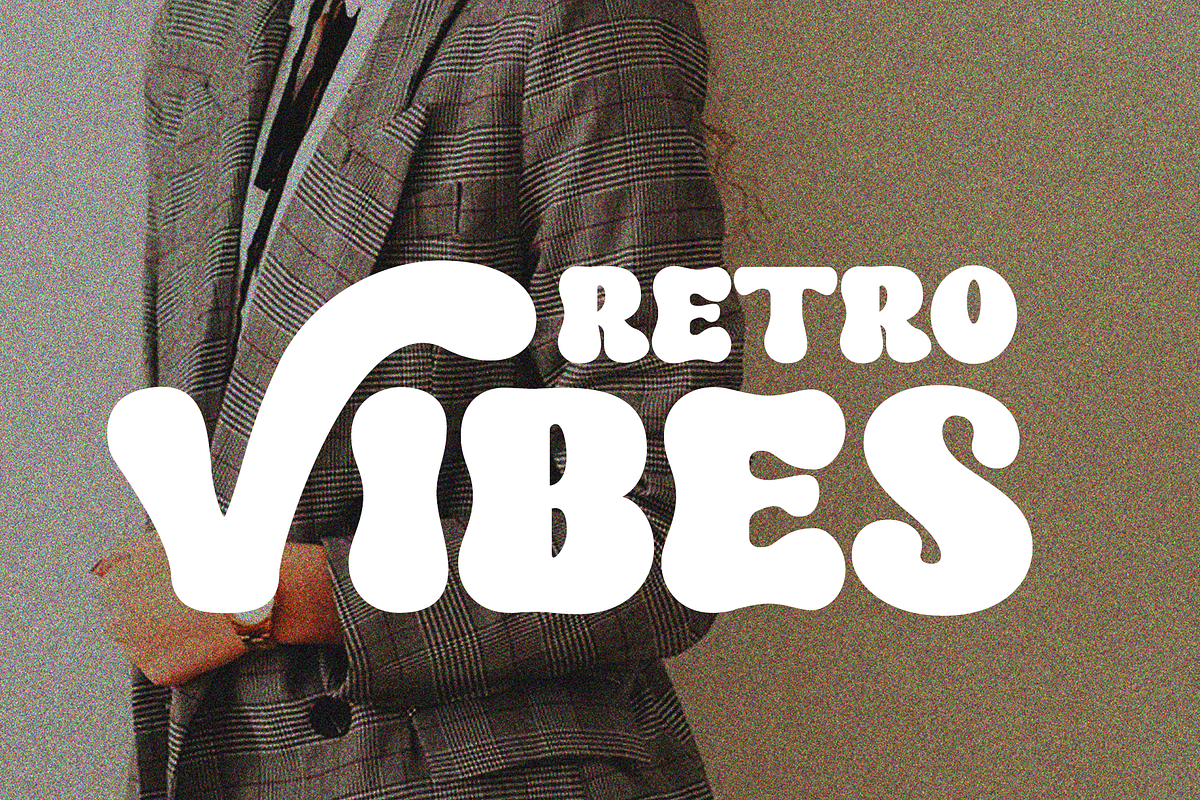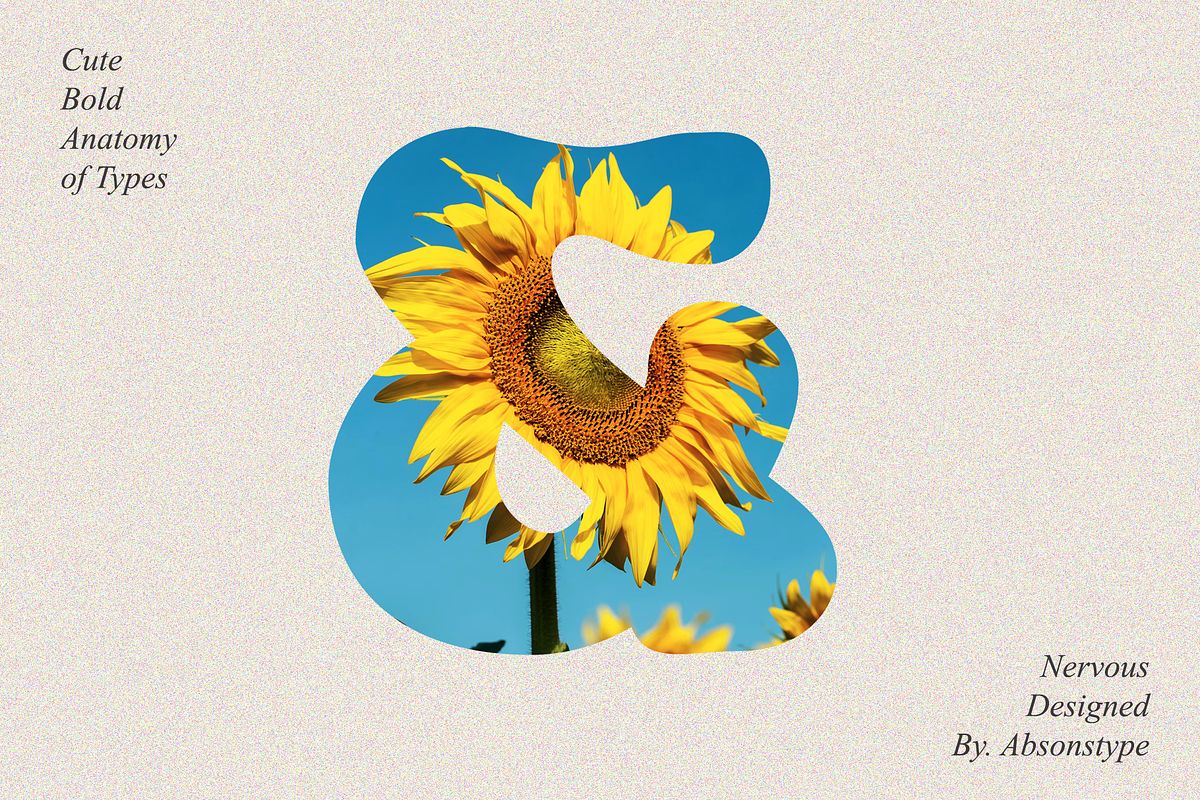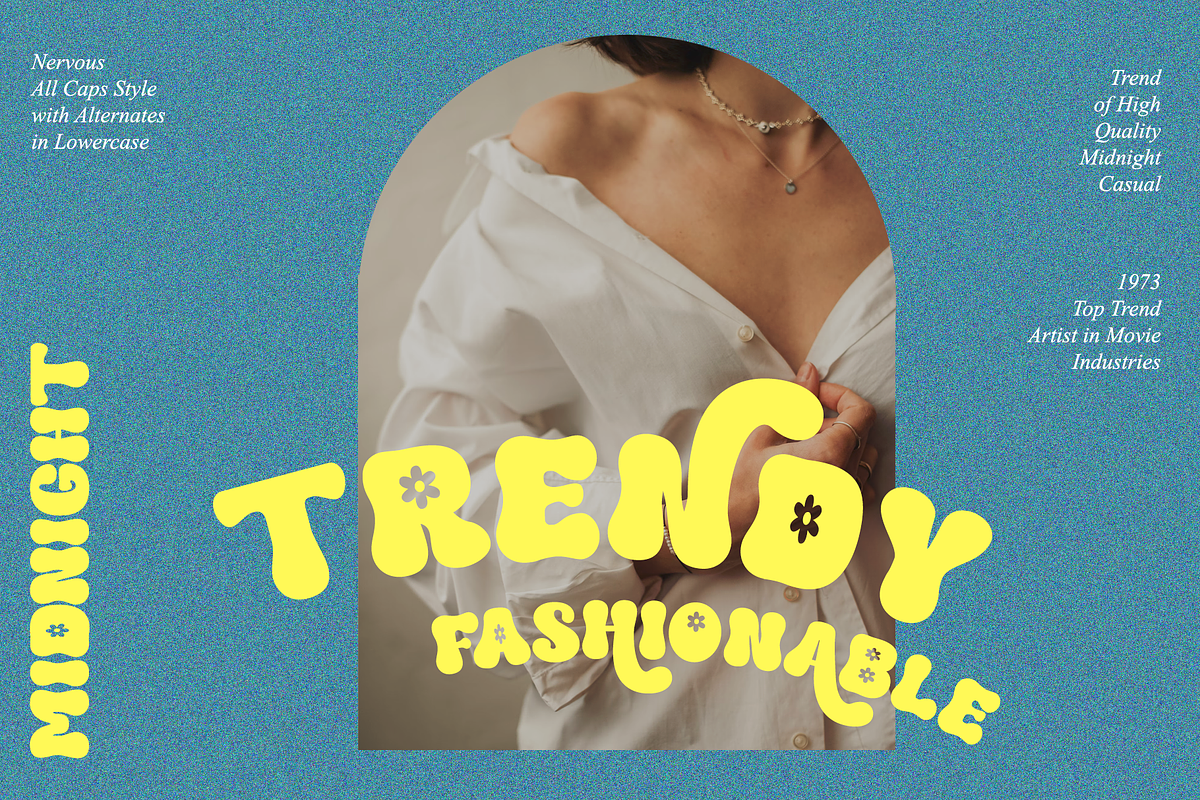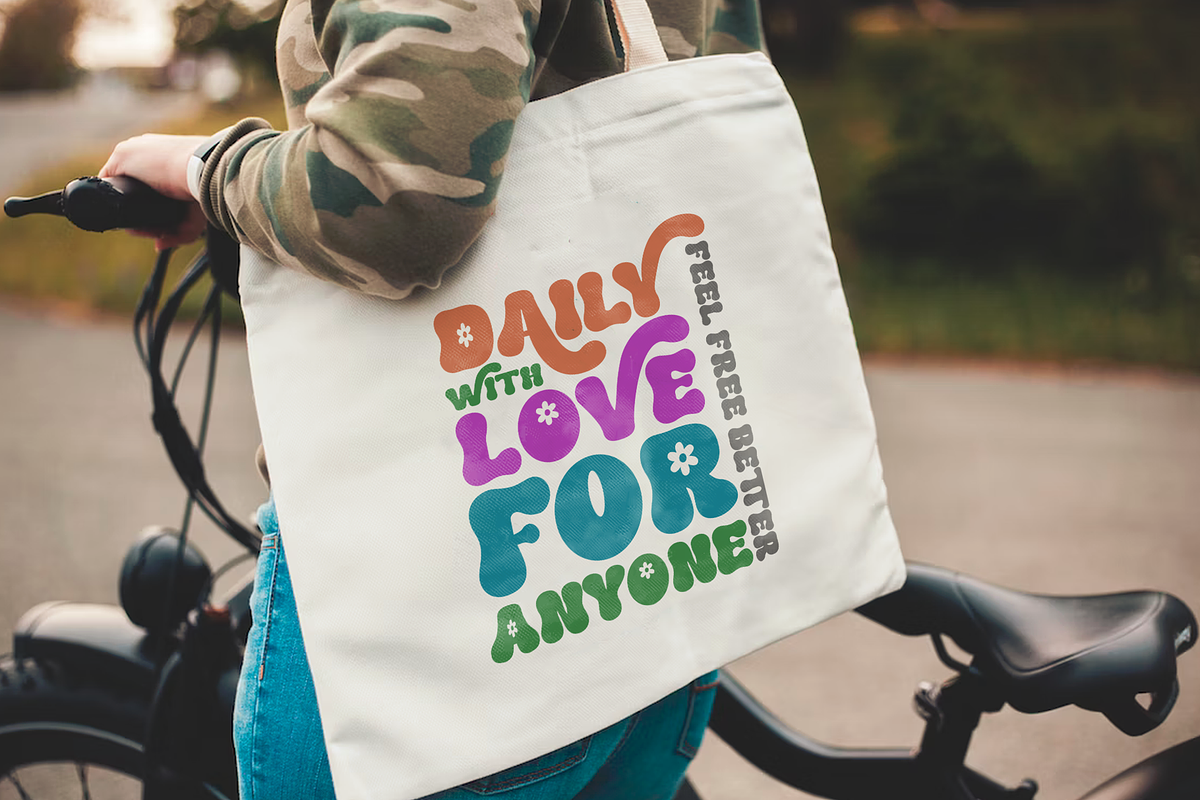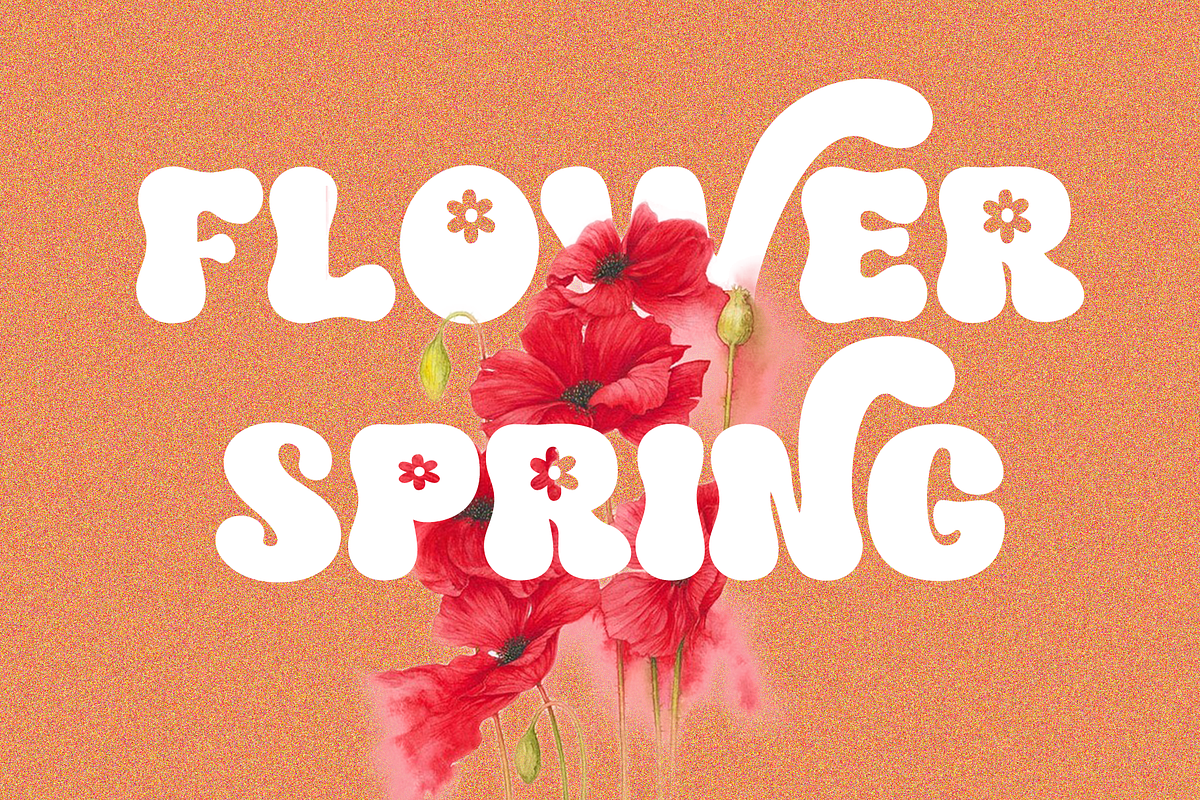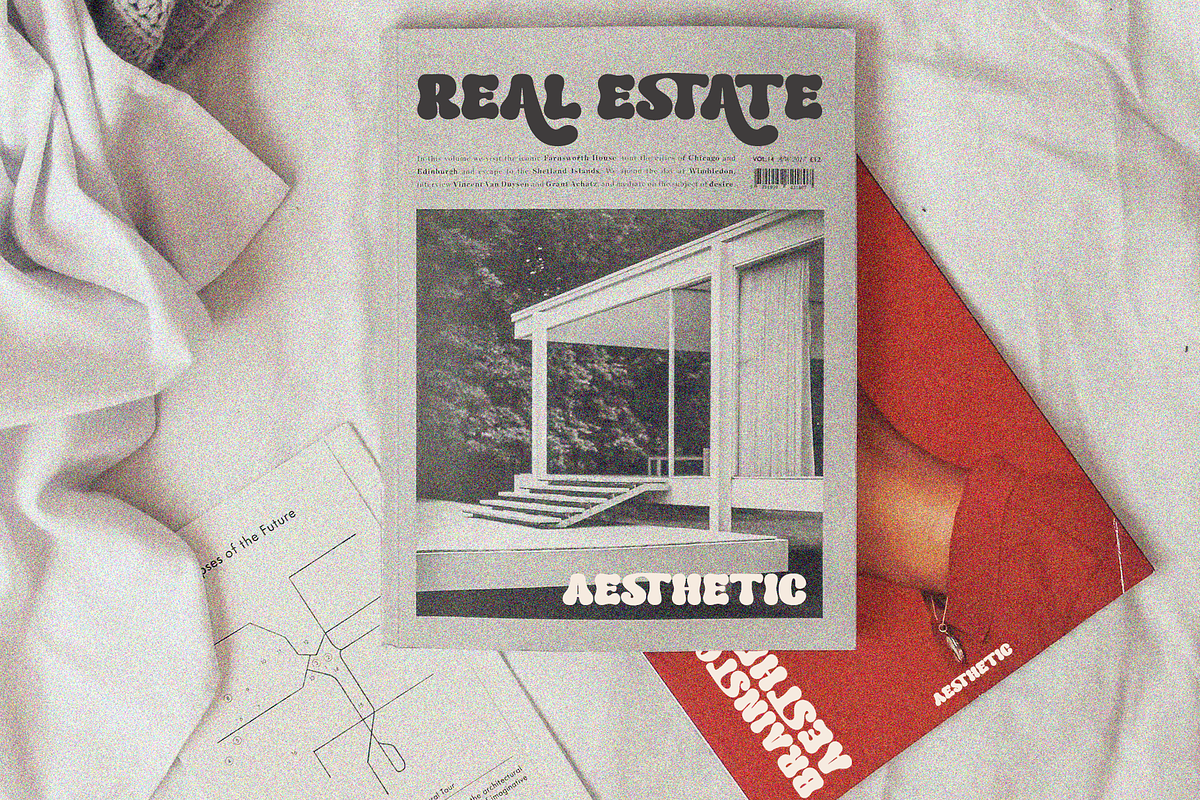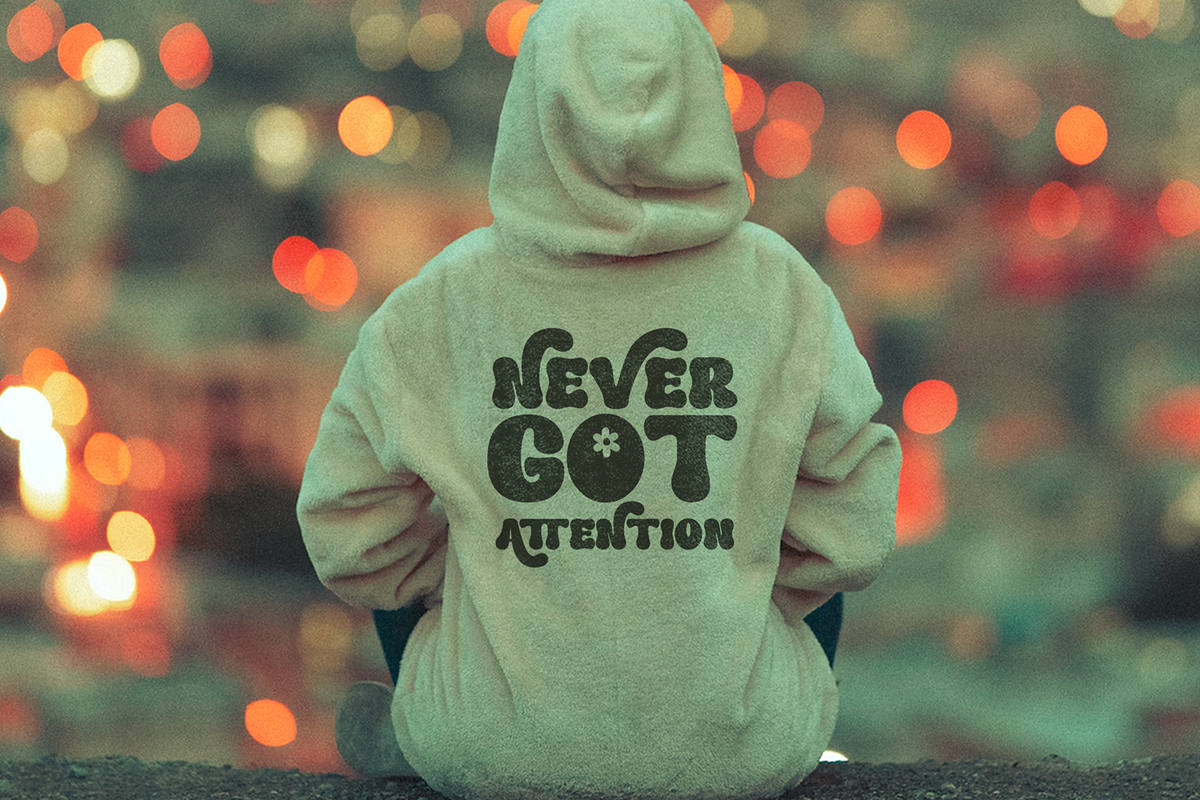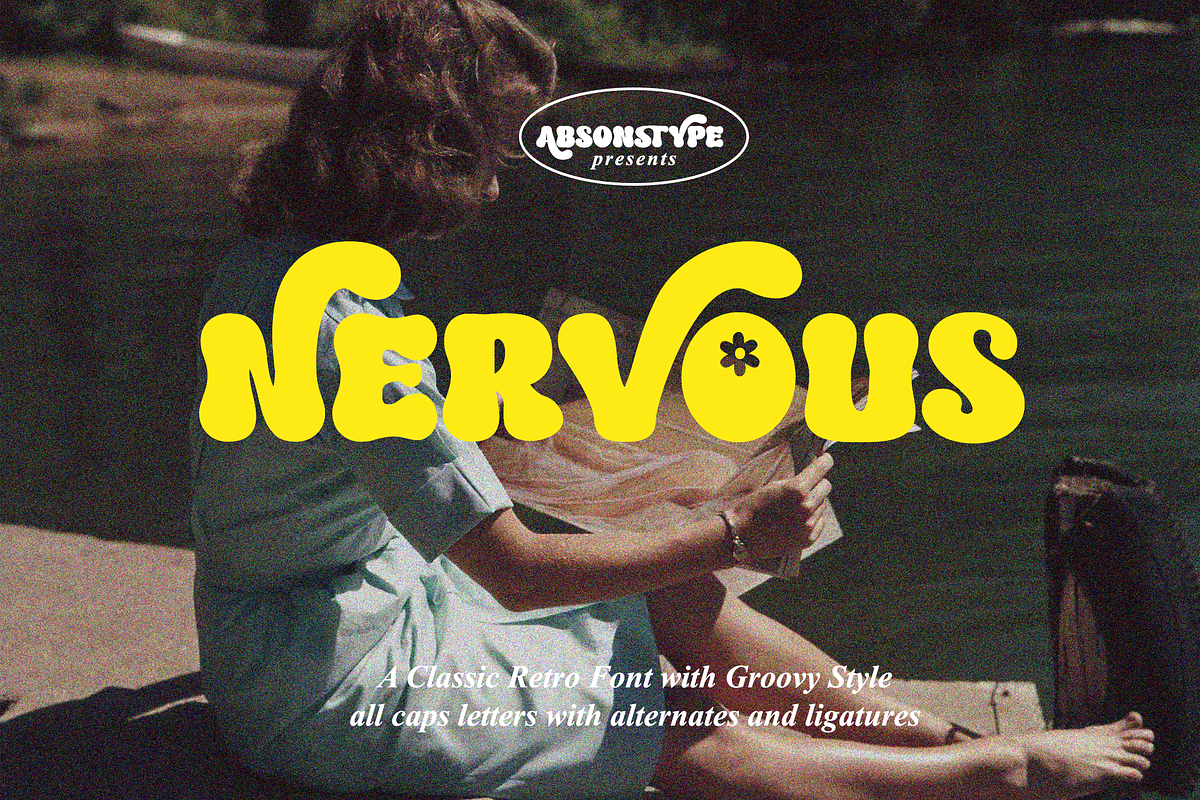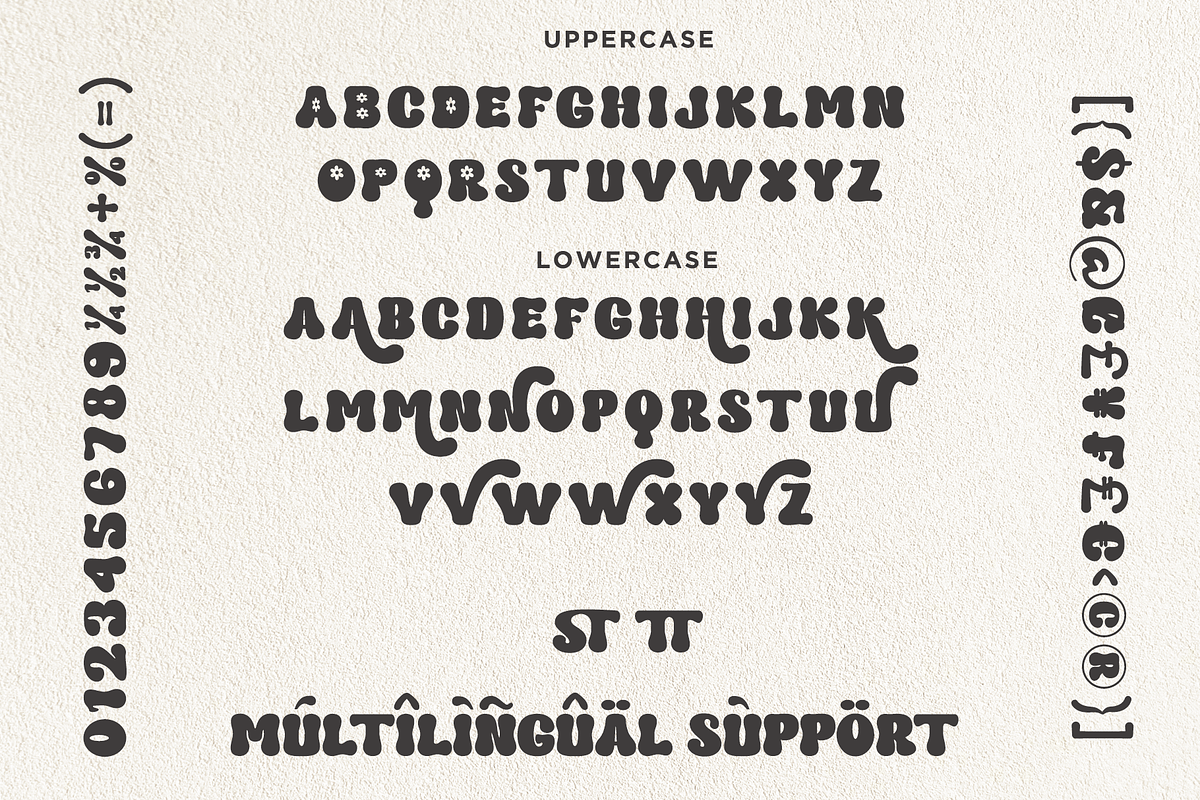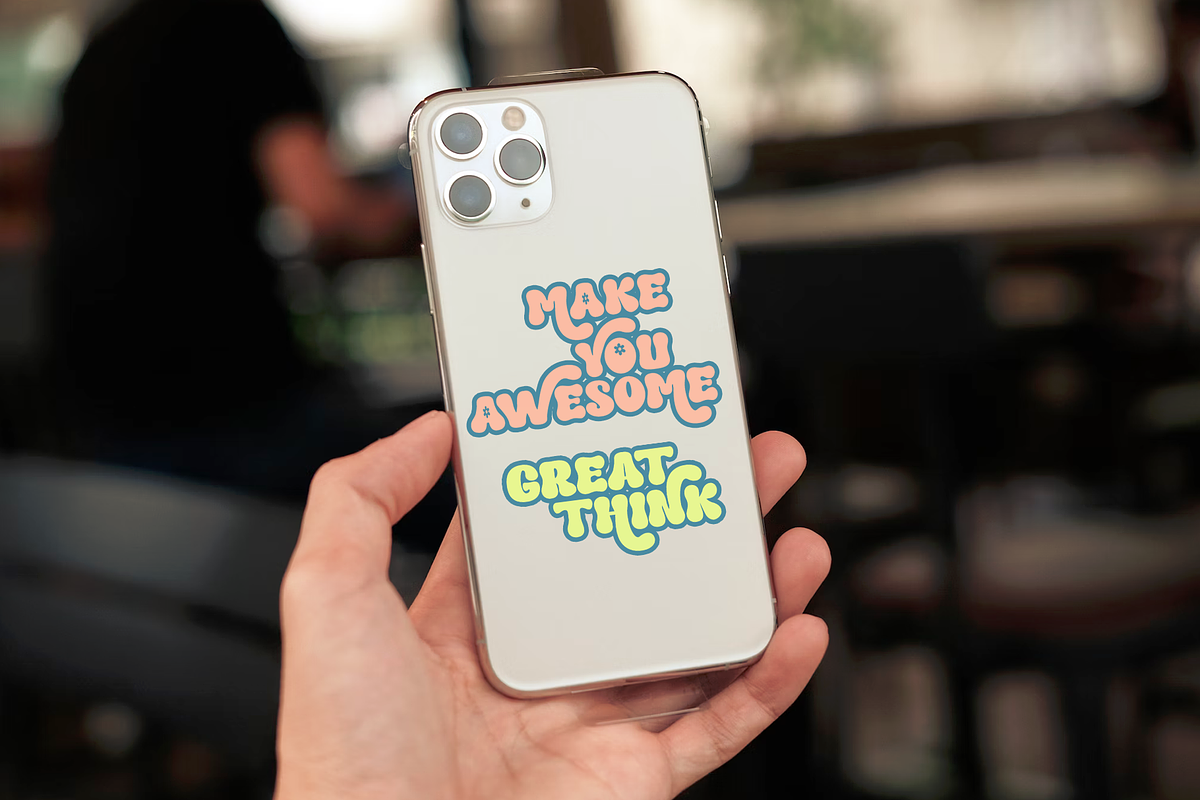
Nervous - Absonstype
Nervous is the Groovy Retro display typeface with All Caps style looks and feel nice balanced. Provide with alternates and ligatures font in variant style make the design letter looks nice. Honestly it works perfectly for headlines, logos, posters, packaging, T-shirts and much more.
- Character set A-Z in All Caps Style
- Alternates in Lowercase
- Ligatures in Lowercase
- Accented Characters
- Multiple Languages Supported